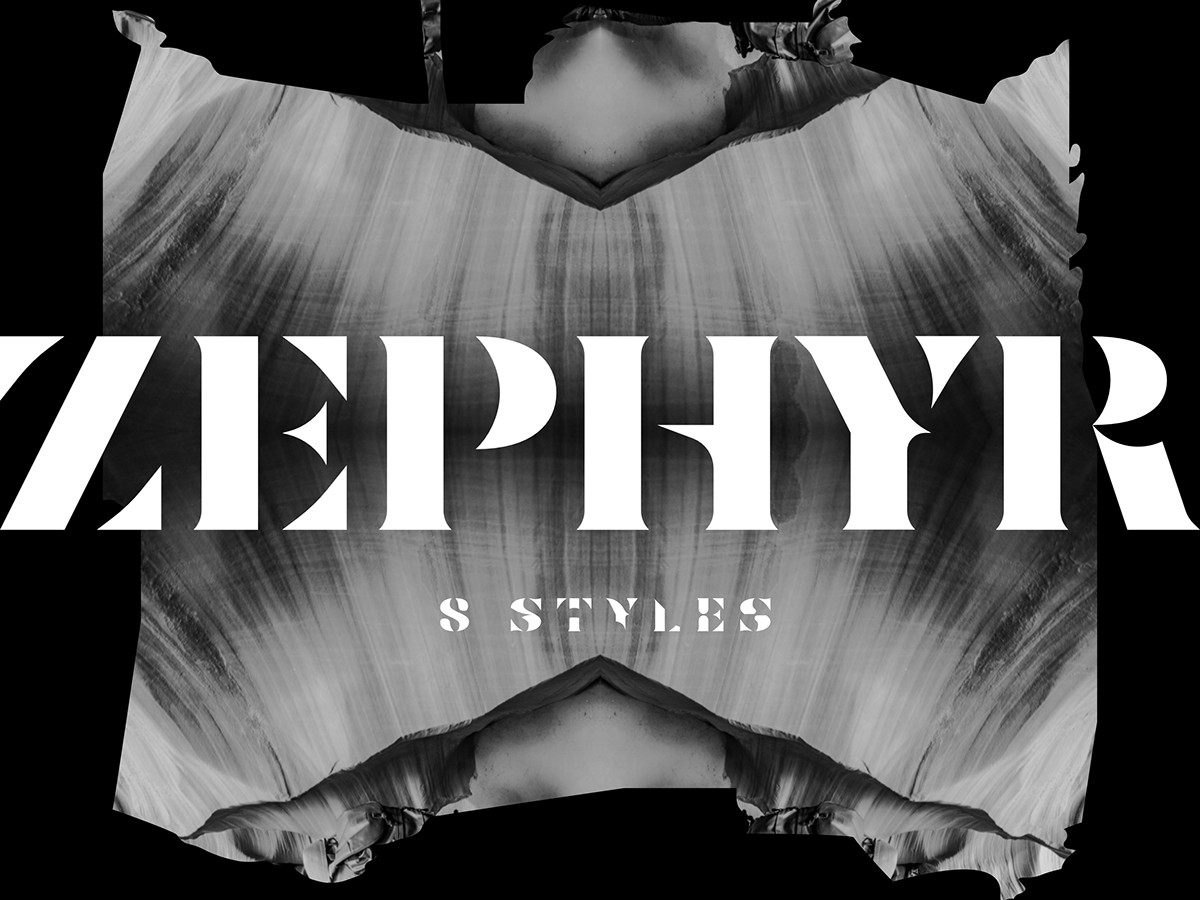
Zephyr – Free Typeface
Zephyr-Free Typeface
Zephyr is a stencil serif typeface with a large number of unique characters. Zephyr was designed for editorial purposes such as magazines and posters.